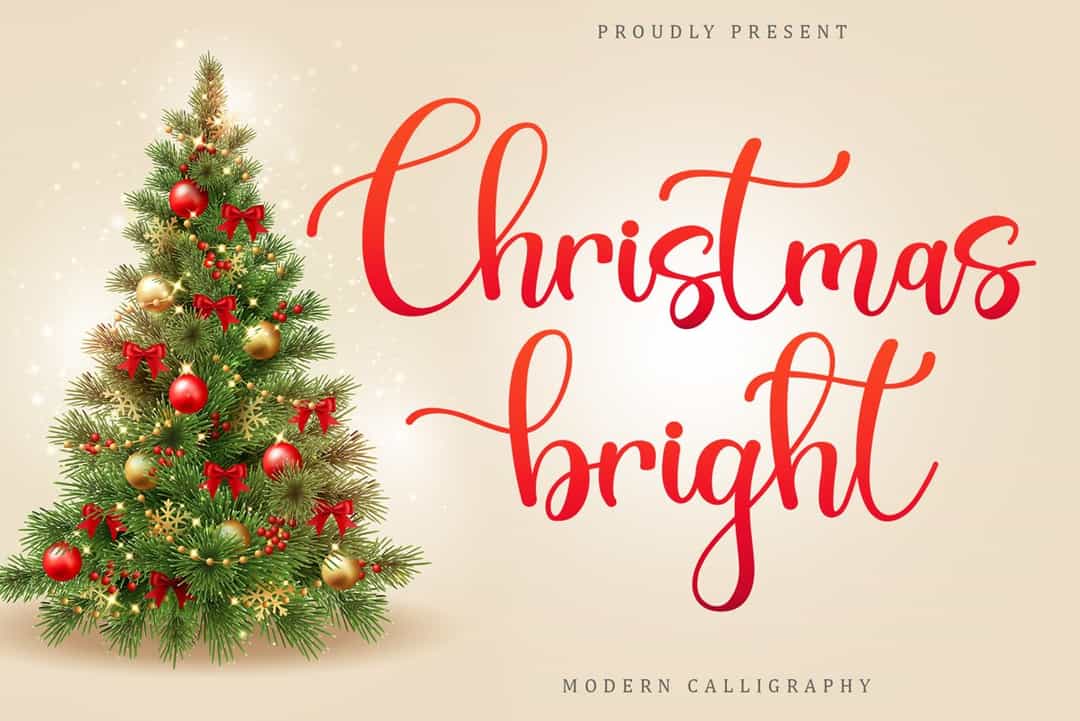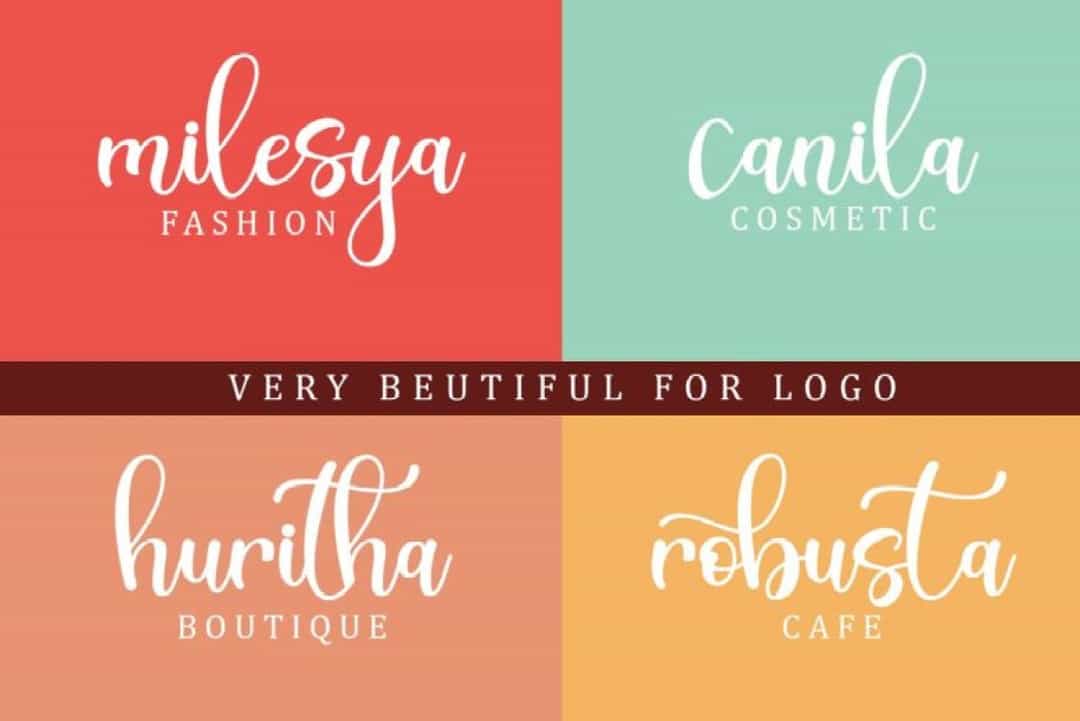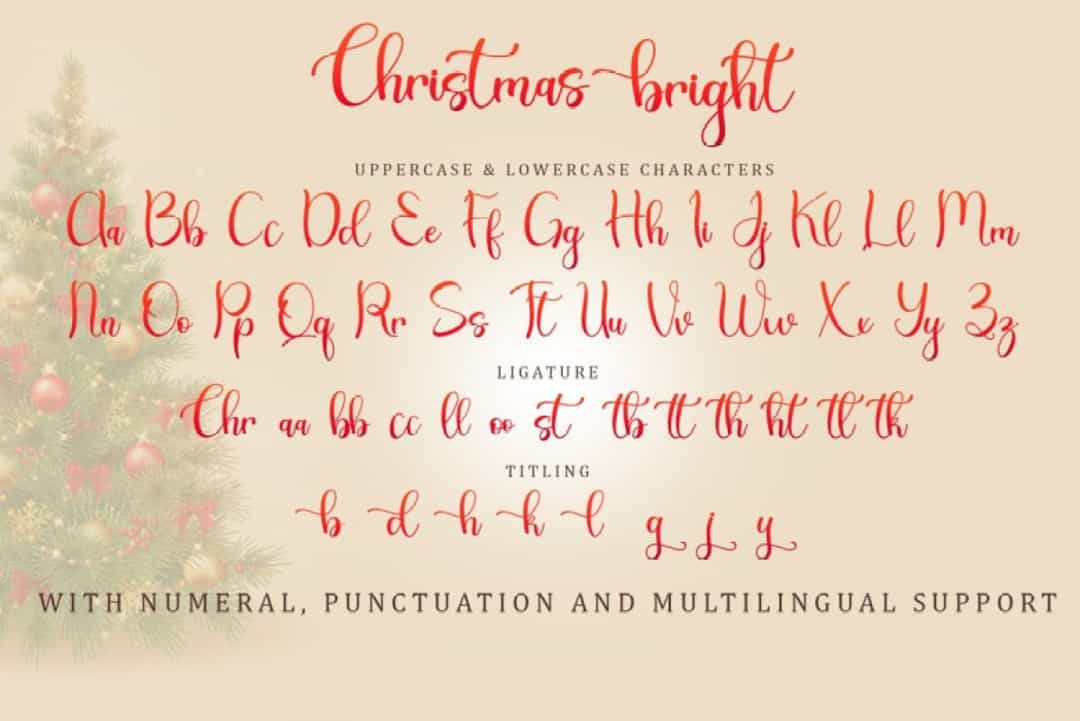
Discover Christmas Bright Font, part of the Calligraphy Script Christmas collection—a versatile and unique font perfect for adding a personal touch to your projects. Download it for free and enjoy crafting designs with style, from invitations to social media posts. This font is available exclusively for personal use, giving you the freedom to create without limits. Unlock your creativity with Christmas Bright Font today!
This typeface is a calligraphy script design with a Christmas Bright name and it is best for creating beautiful writings. Christmas Bright is capable of providing beautiful branding photos, photo overlays, watermark posters, greeting cards, invitations, business cards wedding photography wedding stationary letters apparel and much more.